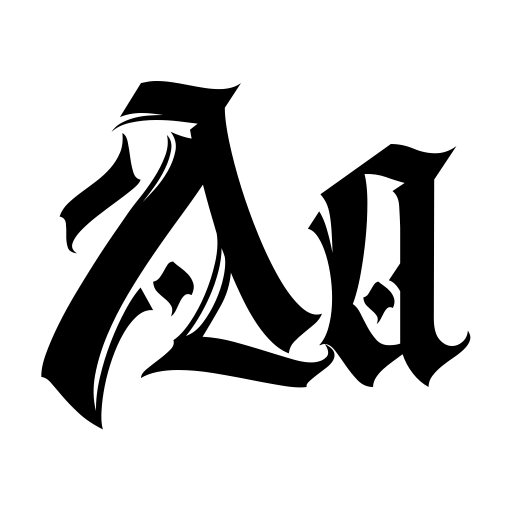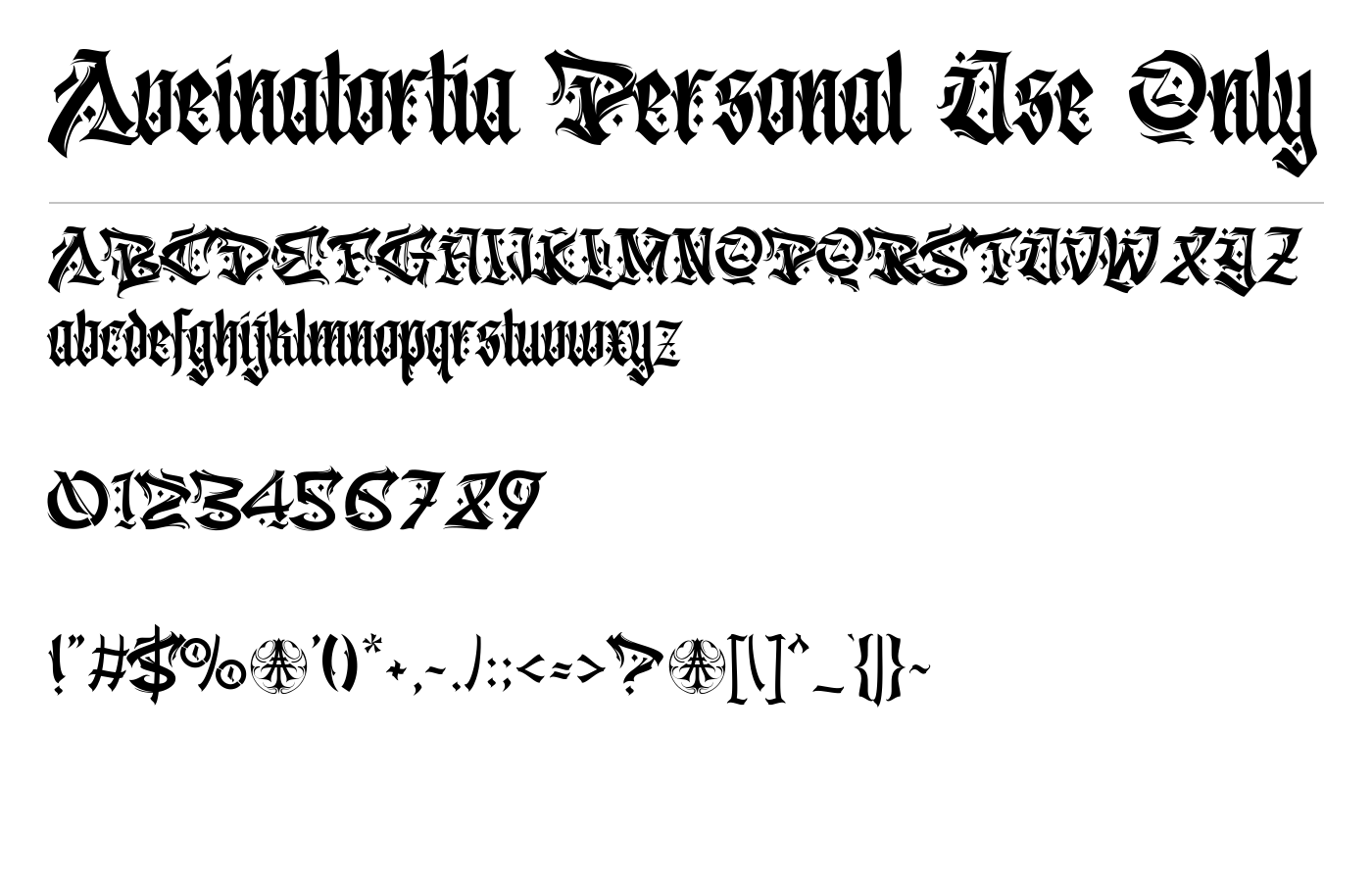
Aveinatortia Personal Use Only is a bold, gothic-inspired blackletter font characterized by sharp, angular strokes and dense lettering that evoke a medieval, dramatic feel. Its ornate, decorative style with high contrast and intricate details makes it ideal for creating strong, vintage-themed headlines, logos, or branding that require a touch of old-world elegance and intensity. This font works best in display settings where its unique and striking personality can be fully appreciated.
Aveinatortia Personal Use Only Font
About Aveinatortia Personal Use Only Font